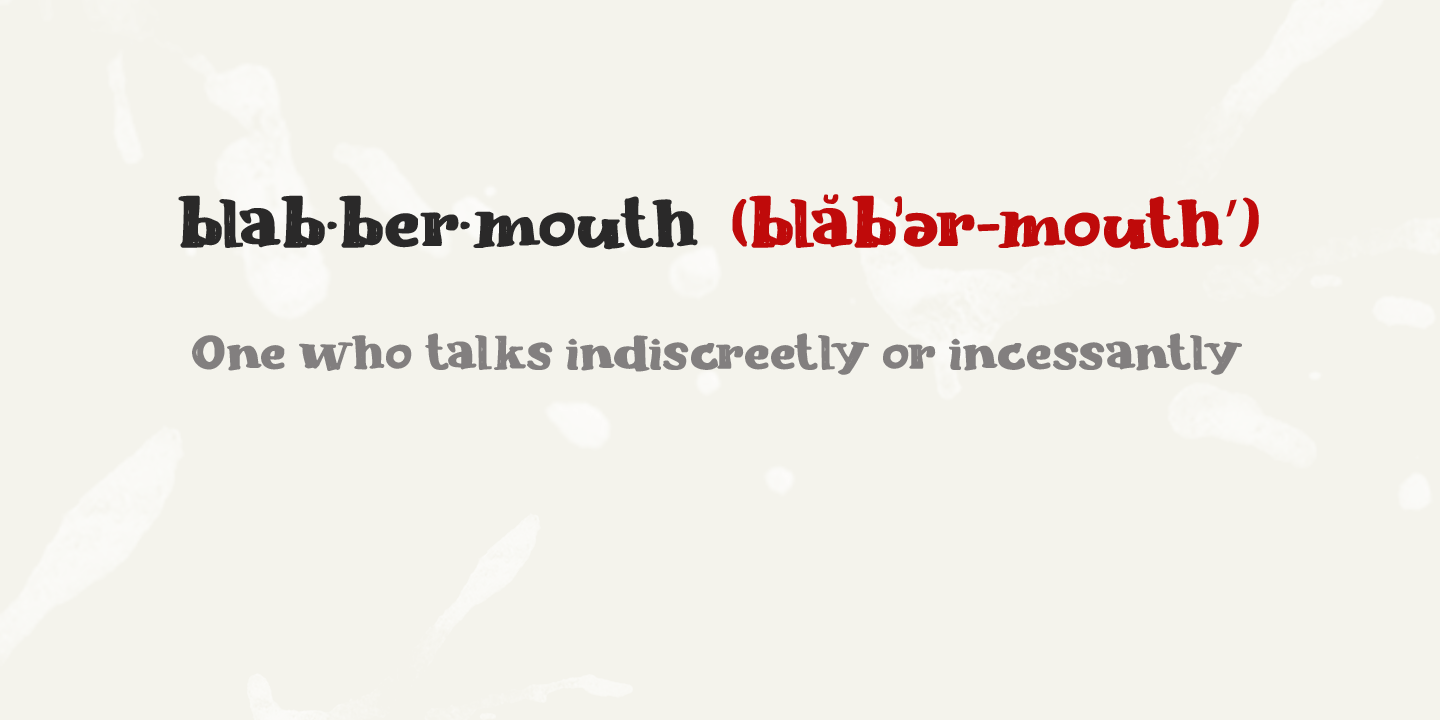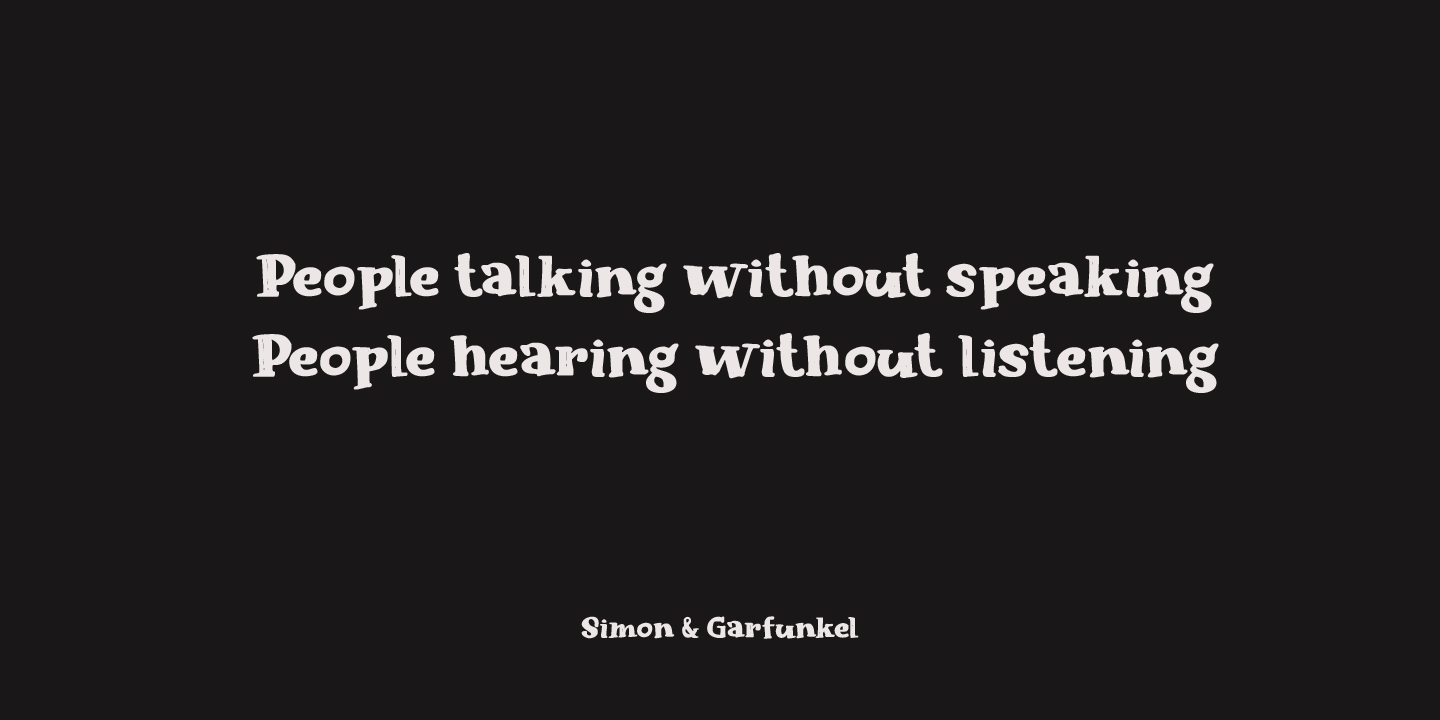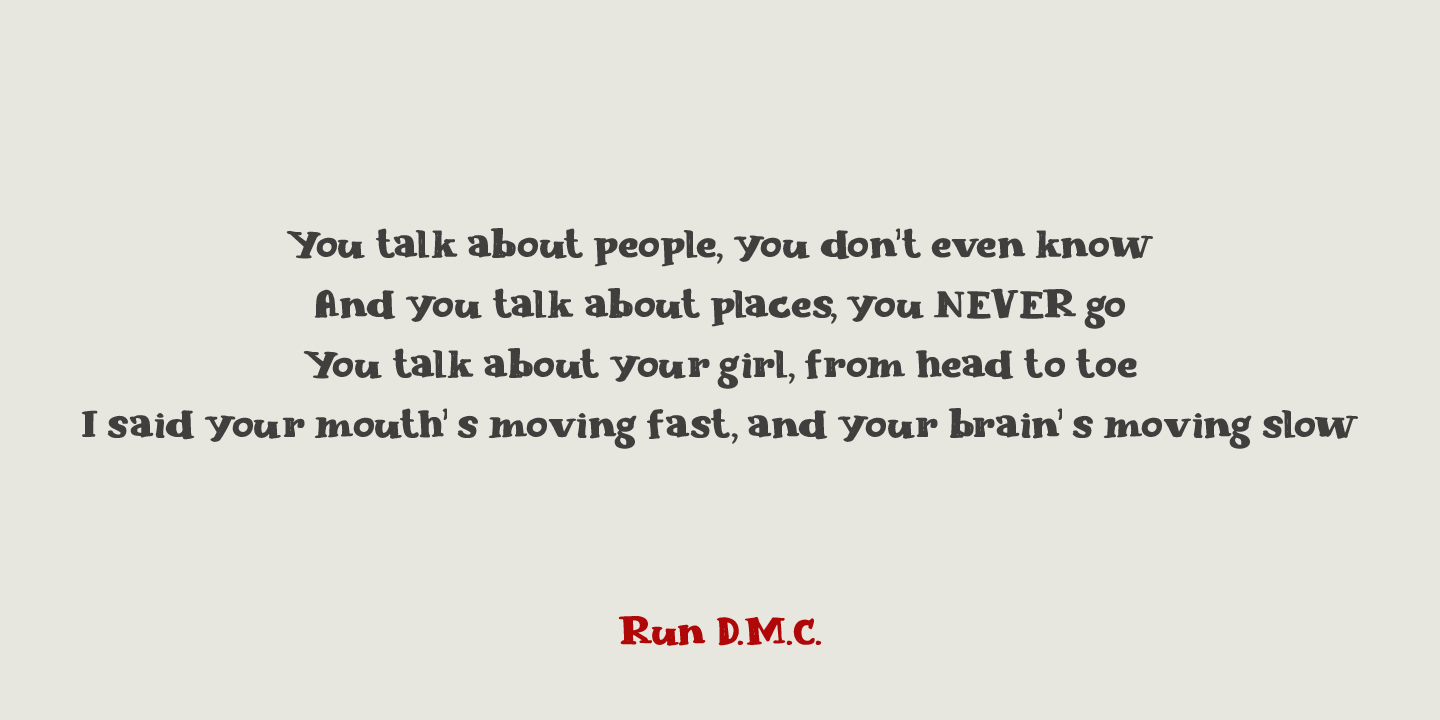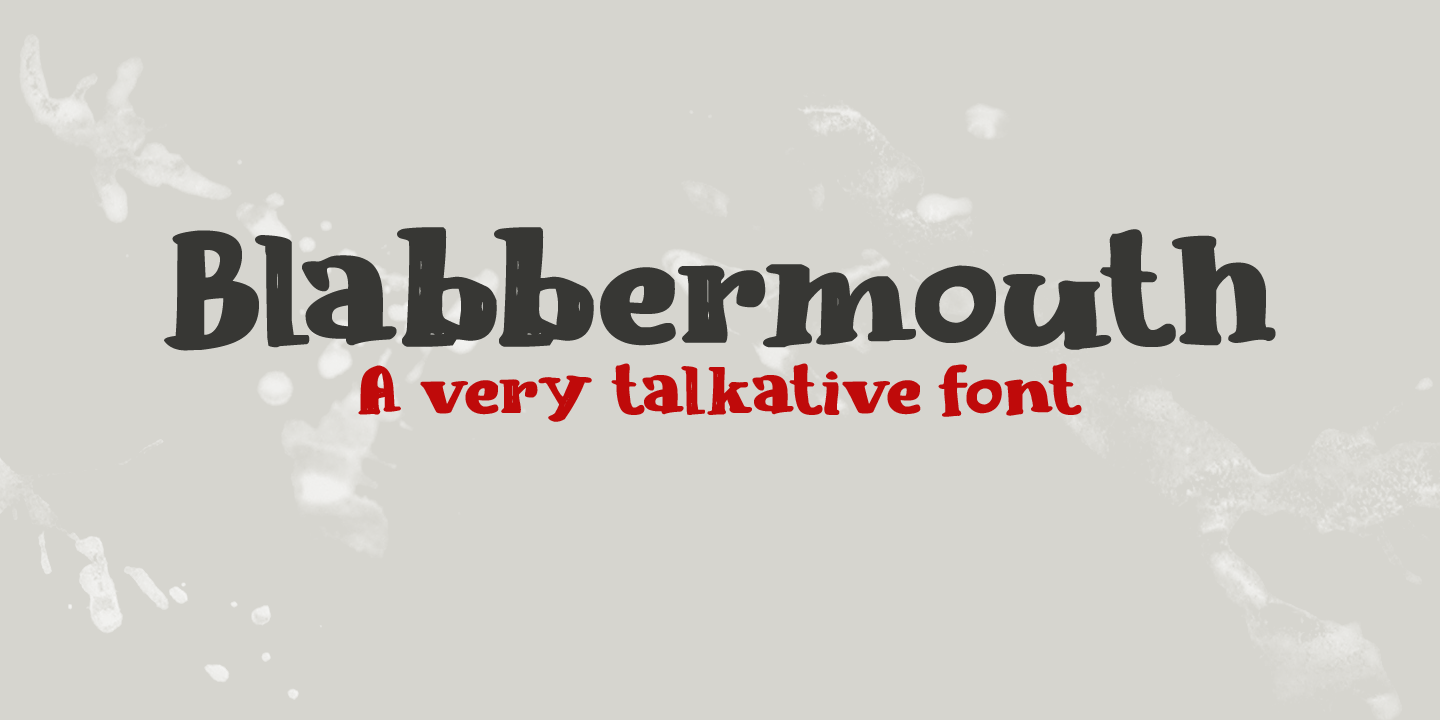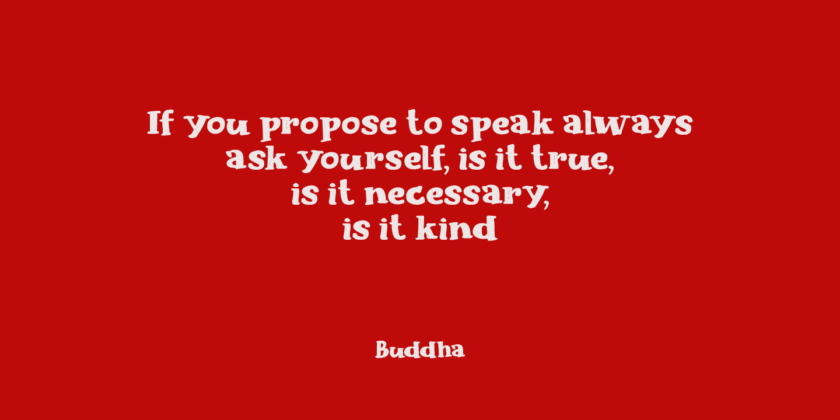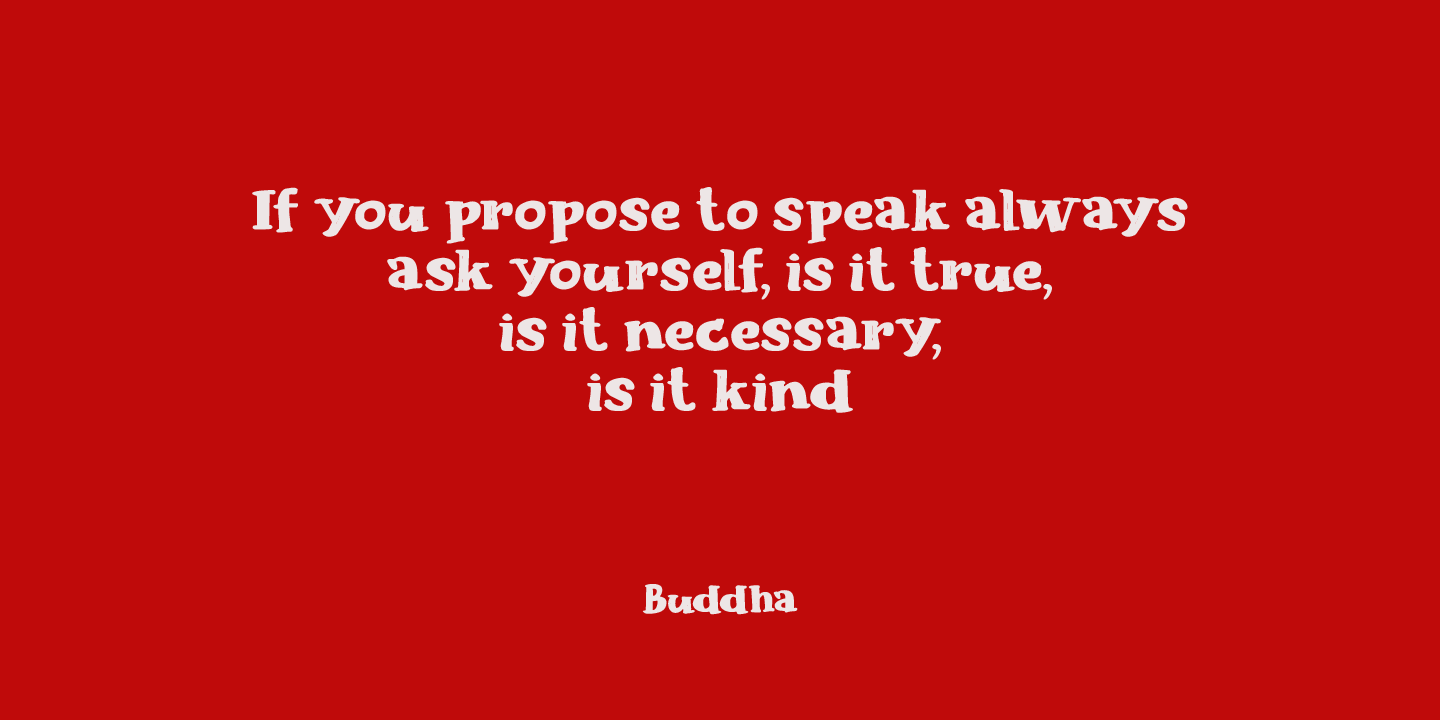
About Blabbermouth
Don\’t ask me why I called this font Blabbermouth, as I really don\’t know. I guess it reminded me of a person who talks too much, as Blabbermouth is kind of in your face, uneven and slightly crazy. Blabbermouth won\’t keep your secrets, but I?m sure it\’ll…